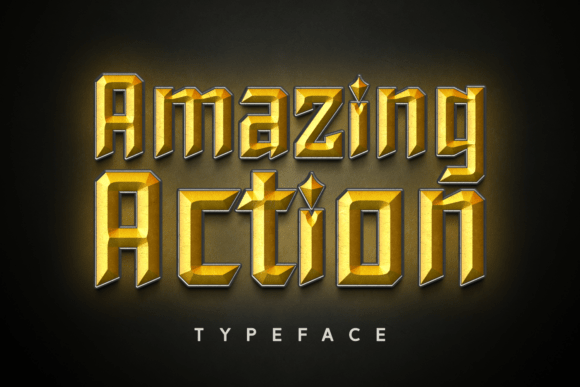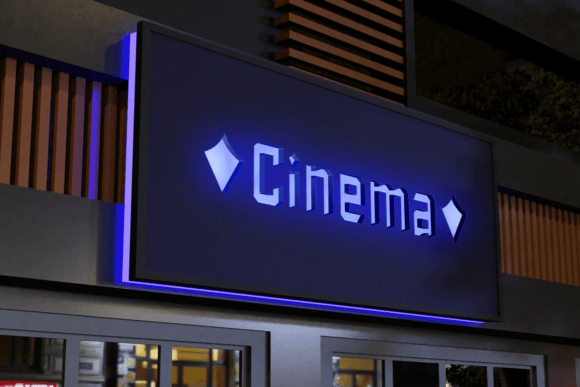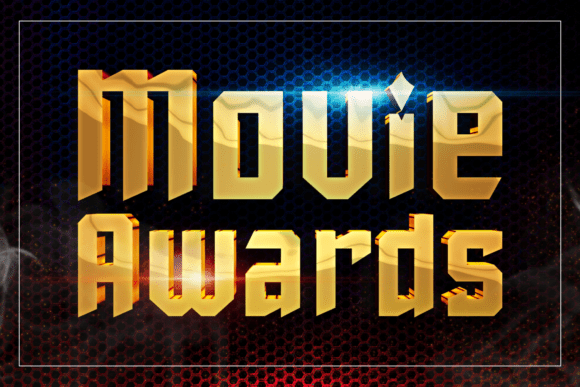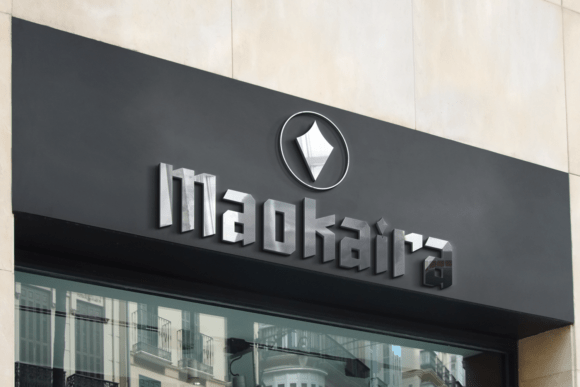
Amazing Action Font
About the Amazing Action Font
Step up your design game with Amazing Action Font, a font that exudes confidence and style. Amazing Action, is a contemporary typeface that shimmers and shines, embodying elegance and grace. This exceptional font stands unique, neatly designed with a hint of whimsy and charm. Suitable for sports themes and historical narratives, it offers versatility in design, from creating deeply impactful graphics for dynamic videos to crafting unforgettable branding assets.
The strength of this font lies in its capacity to imbue designs with an air of sophistication. Whether it’s beauty-themed designs, movie title fonts, or an adventurous creative odyssey, Amazing Action elevates it with a touch of sophistication. Inspire with elegant layout designs or inject a hint of whimsy into your craftmaking projects.
From handset logos to invitation cards, Amazing Action makes a strong statement while maintaining its refined essence. Its adaptability extends to branding, videos, trendy brochures, and template layouts—infusing a touch of magic in every detail. Think celestial enchantment meets versatility, perfect for various mediums, from font website applications to printed formats.
Amazing Action is also the ideal choice for typography enthusiasts—its distinct text styles lend itself well for T-shirt designs and more. Experience the graceful allure, the whimsical charm, and the power of an unforgettable branding tool with Amazing Action font. Elegance is not simply a trait, it’s a design statement. Embrace it with the Amazing Action font.
Amazing Action Font Usage Examples
Amazing Action Font Example